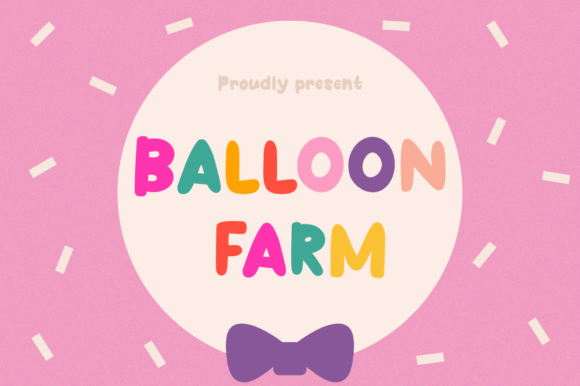
Unveil the delightful charm of "BALLOON FARM," an irresistible display font that dances across your digital designs, leaving a trail of effervescent joy! Step into a realm where creativity and whimsy intertwine, where the ordinary transforms into the extraordinary.
With its buoyant and affable characters, "BALLOON FARM" elevates your messages to new heights, adding playful accents to your posters, logos, greeting cards, packaging, and illustrated masterpieces. Let your imagination soar as you craft captivating compositions that radiate warmth and cheer!
Dive into the depths of the alphabet with "BALLOON FARM," and discover an array of letters, numbers, and glyphs that possess a unique, bubbly charm. Arrange them in perfect harmony to create a visual symphony that captivates the senses.
Embrace the magic of "BALLOON FARM" and witness the transformation of your designs into captivating works of art. It's the perfect font for adding a touch of fun and delight to any project. Let your creativity take flight and embark on an artistic adventure like never before!